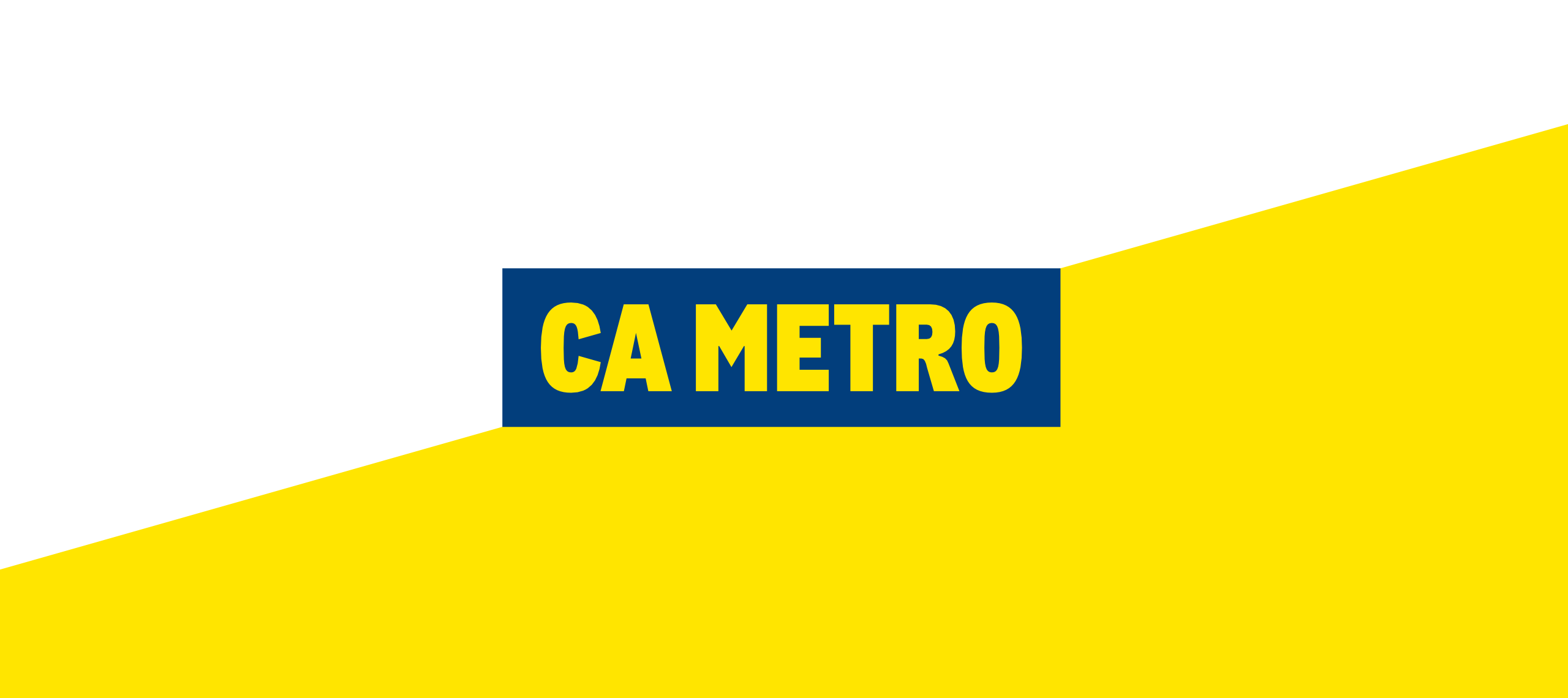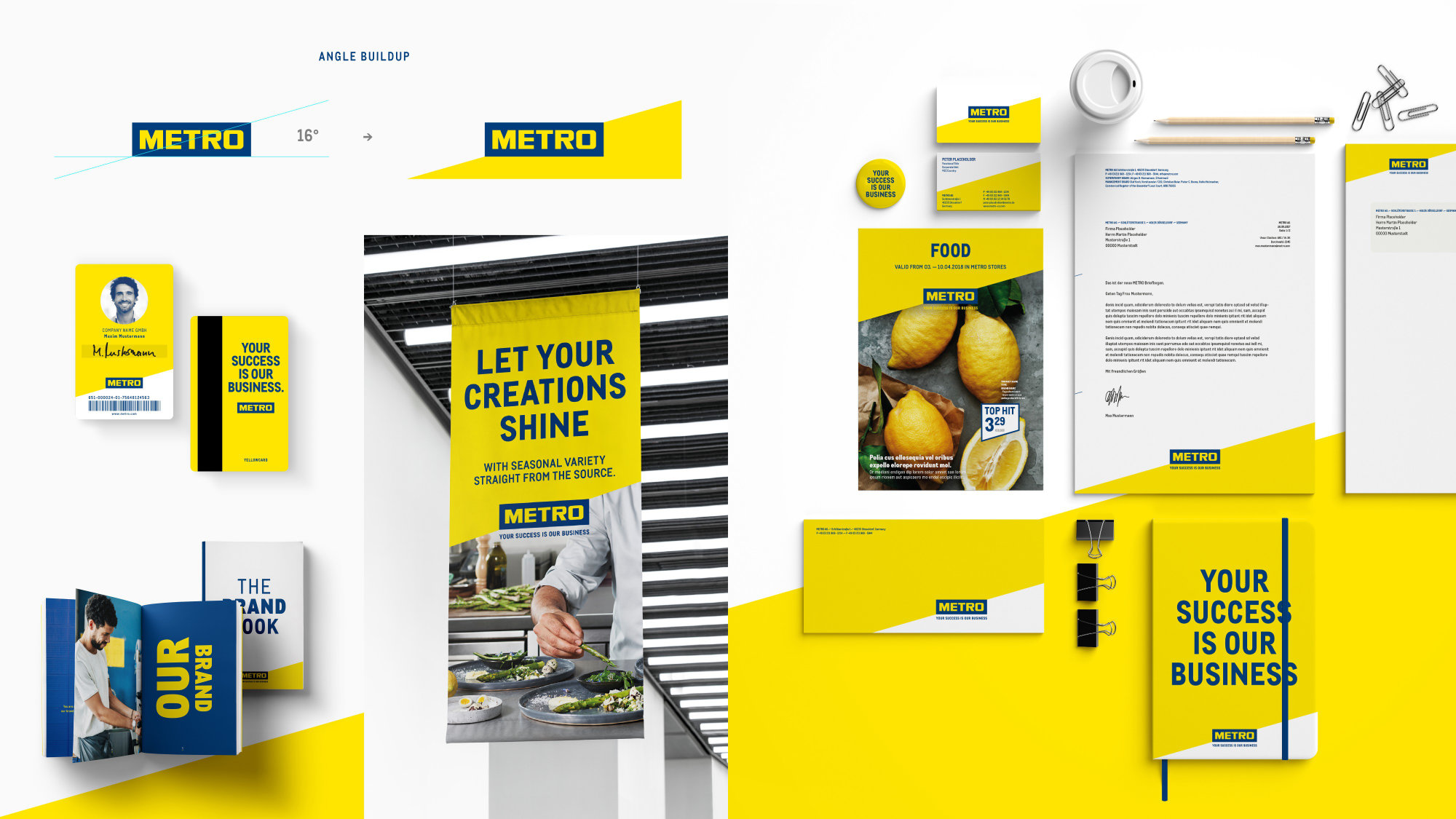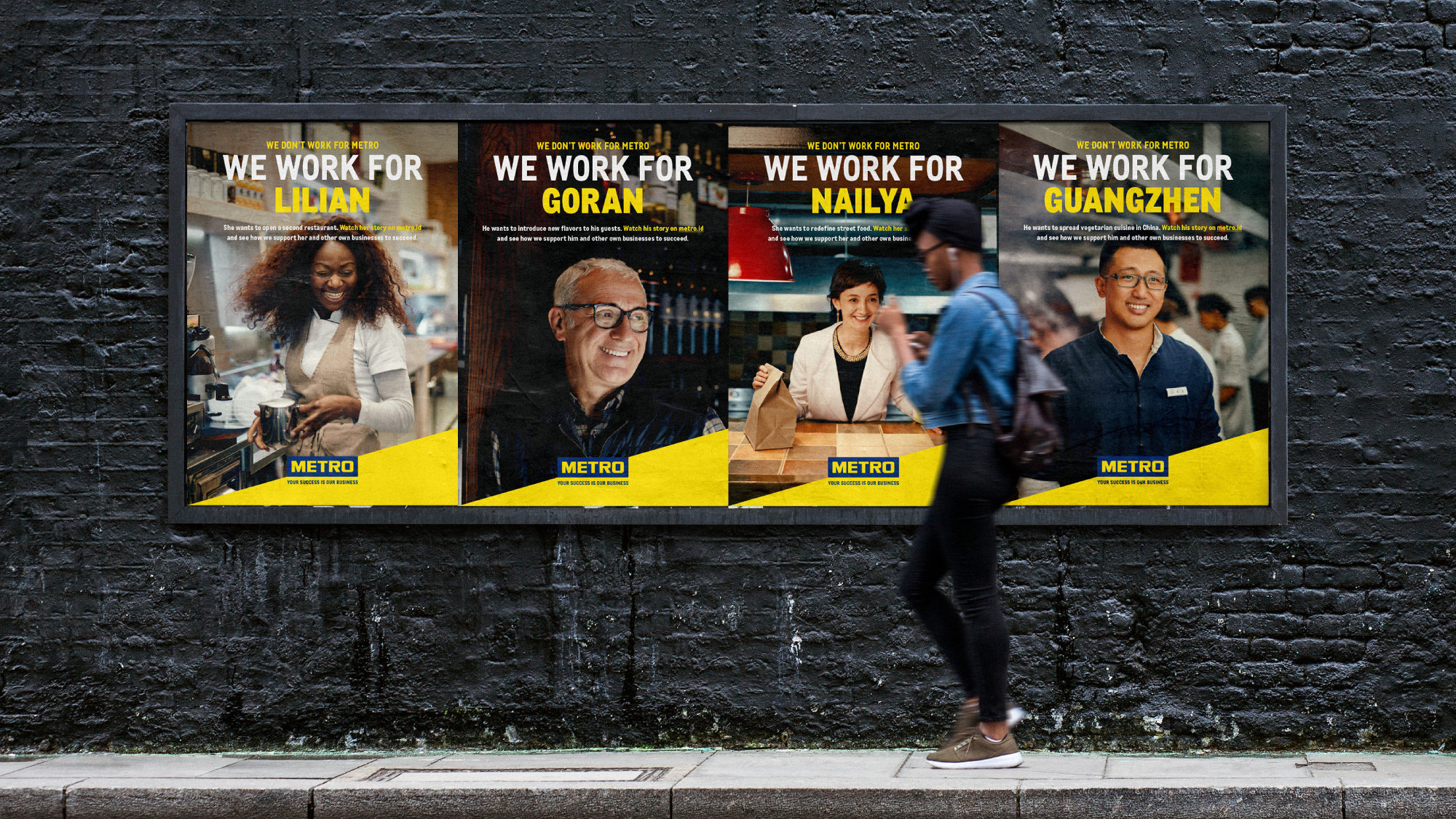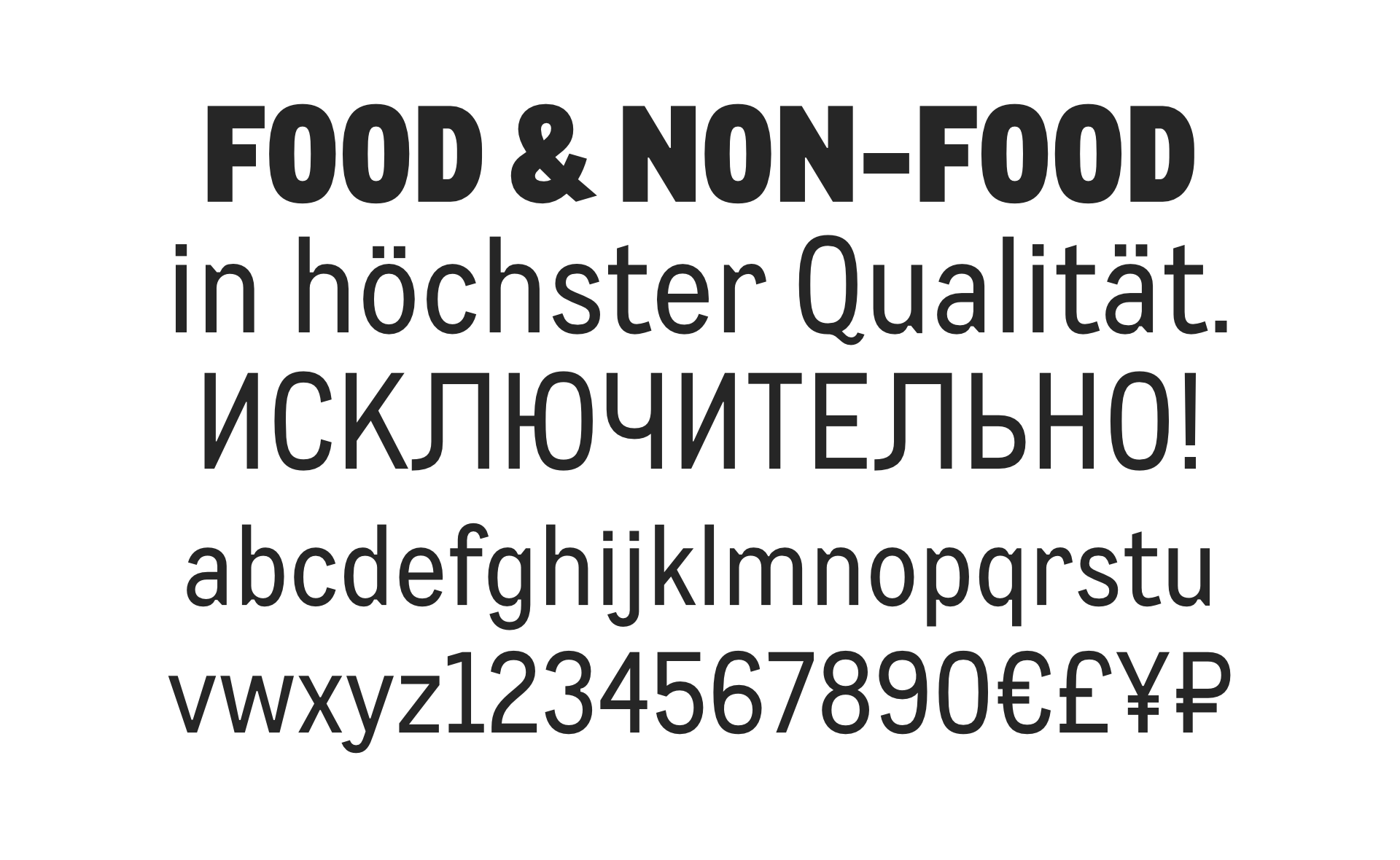
CA Metro
Custom Typeface Family
We were commissioned to design a corporate font for the METRO Wholesale brand appearance, developed by Serviceplan Campaign Hamburg. Based on the CA Cula font, an independent font family was developed that reflects the corporate design philosophy. It functions as a display and text font for posters, price and text labels, point of sale, brochures and other products, as well as the website.
Their new corporate design features the “Angle of Success”, which was used in various graphic elements. In the logo, this angle is represented by the rising yellow area and is now also found in the typeface. Wherever it made sense, stroke endings in the CA Metro typeface are designed at a 16-degree angle to support the corporate design.